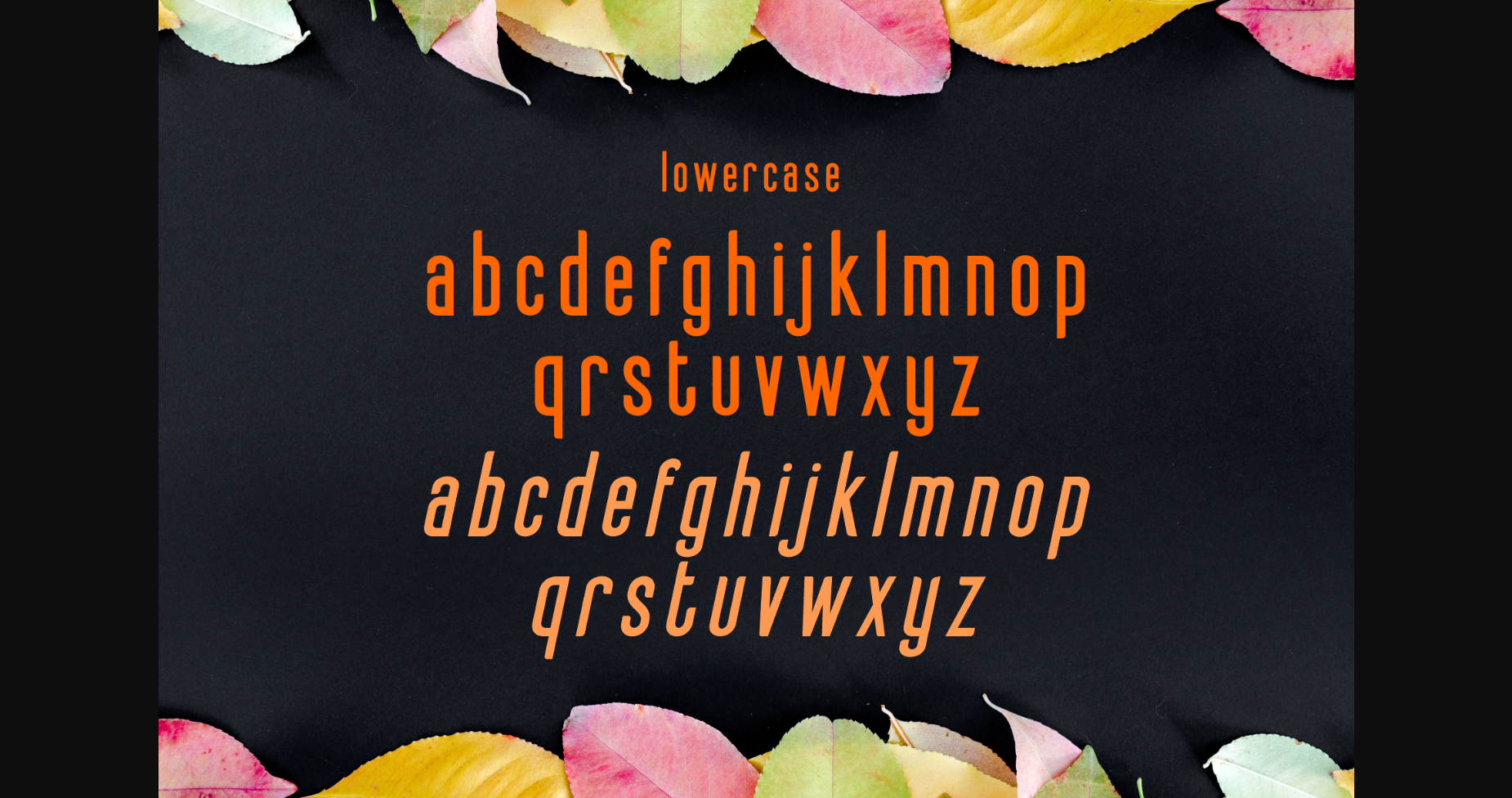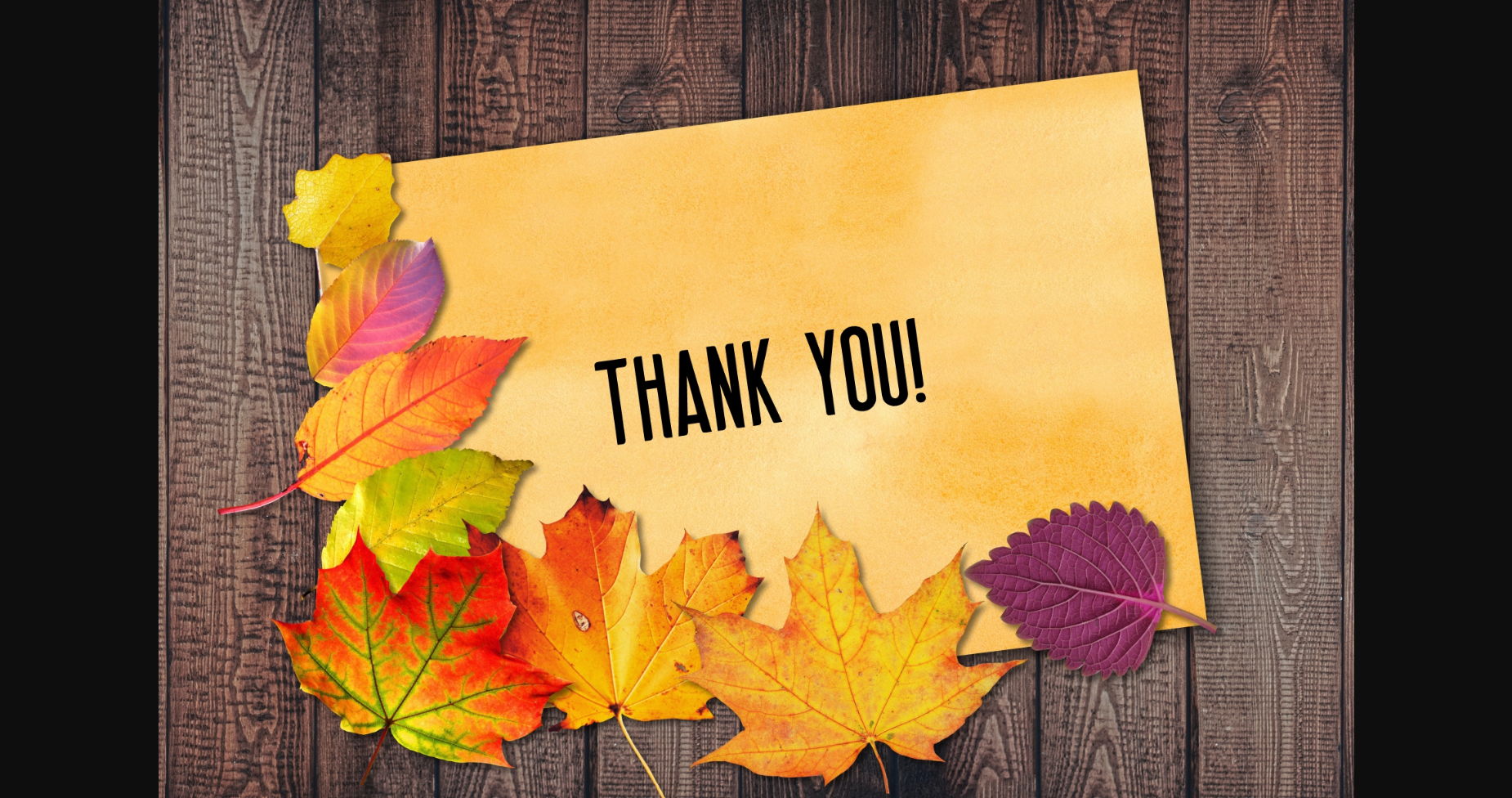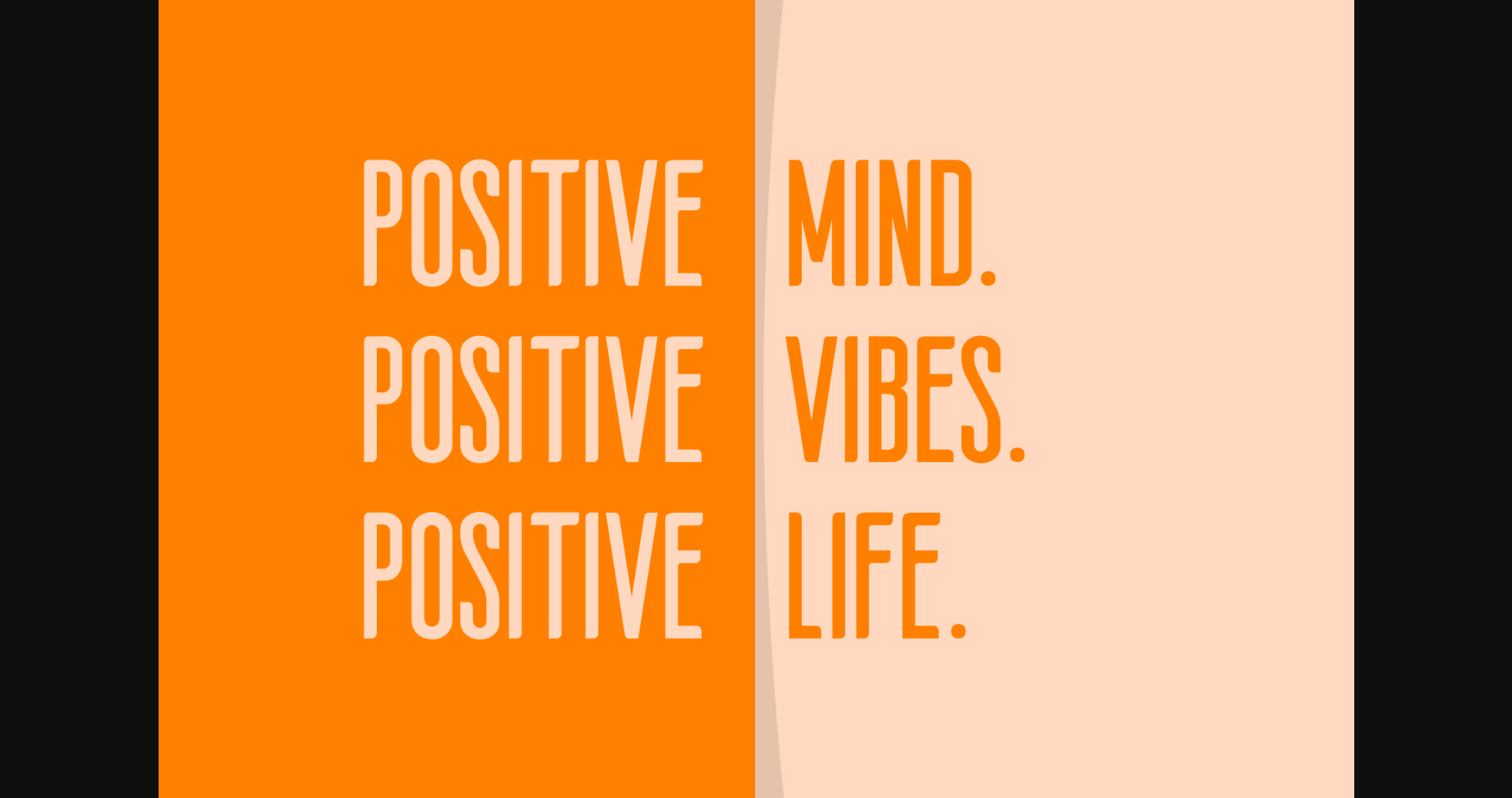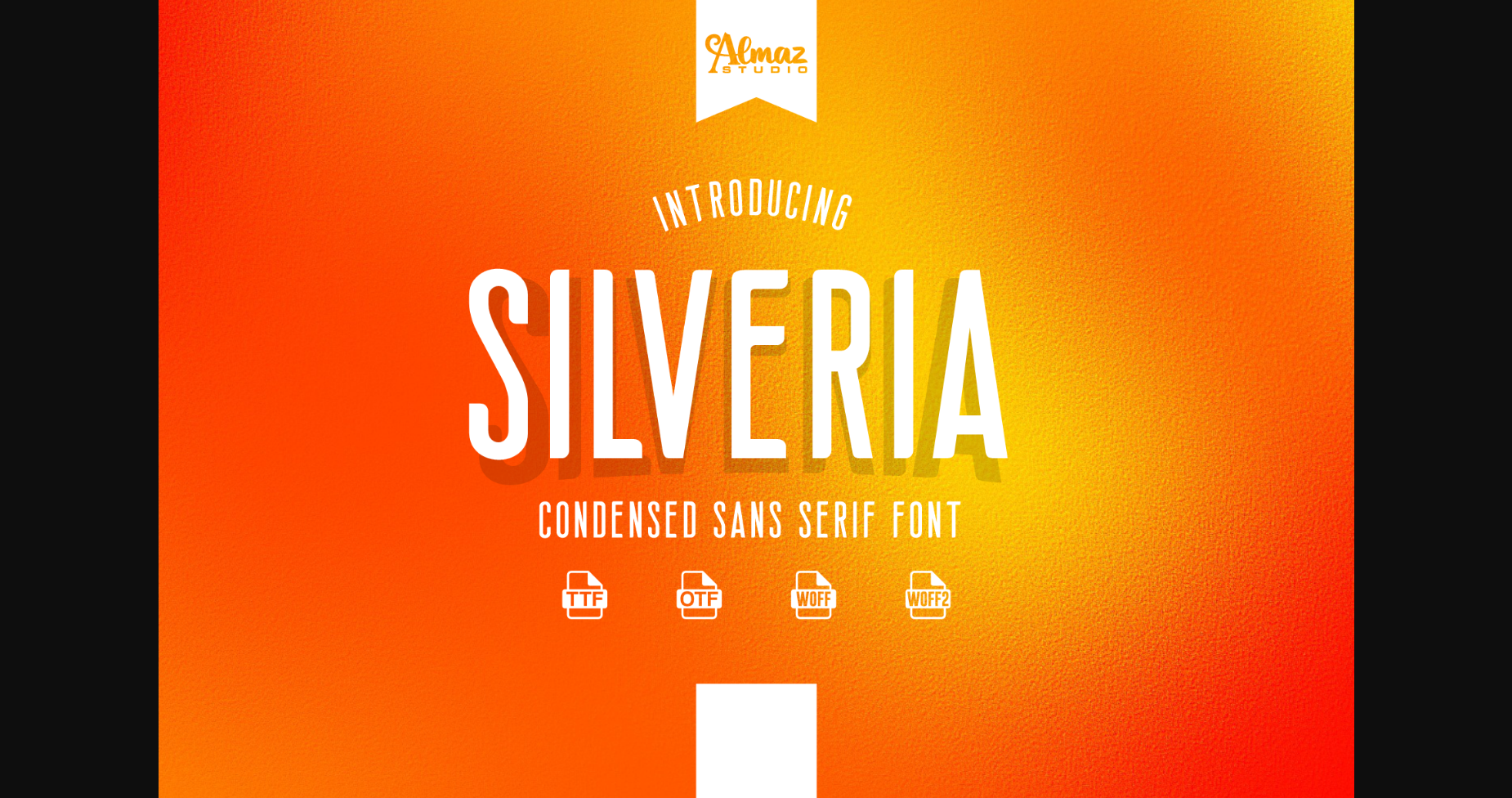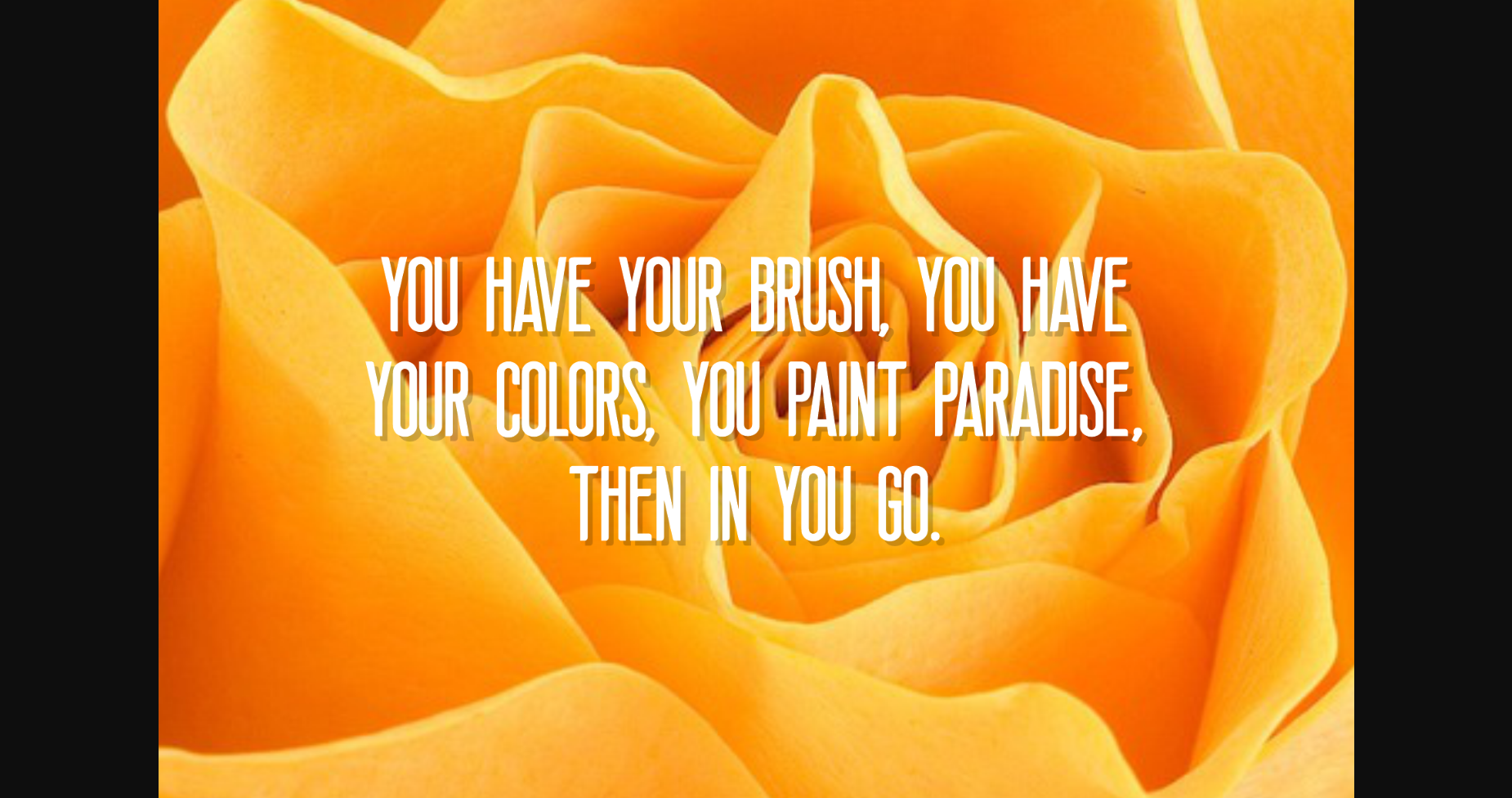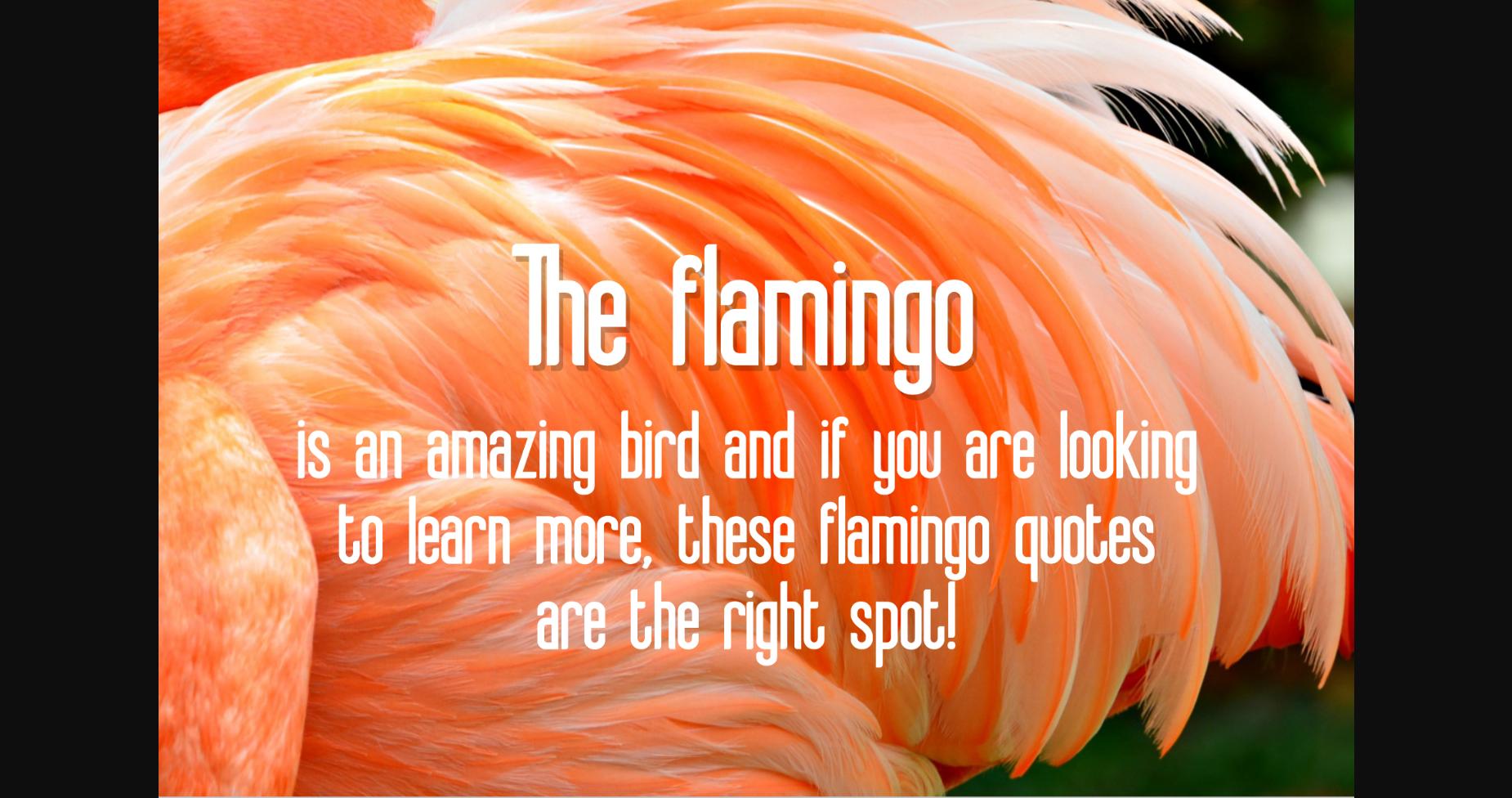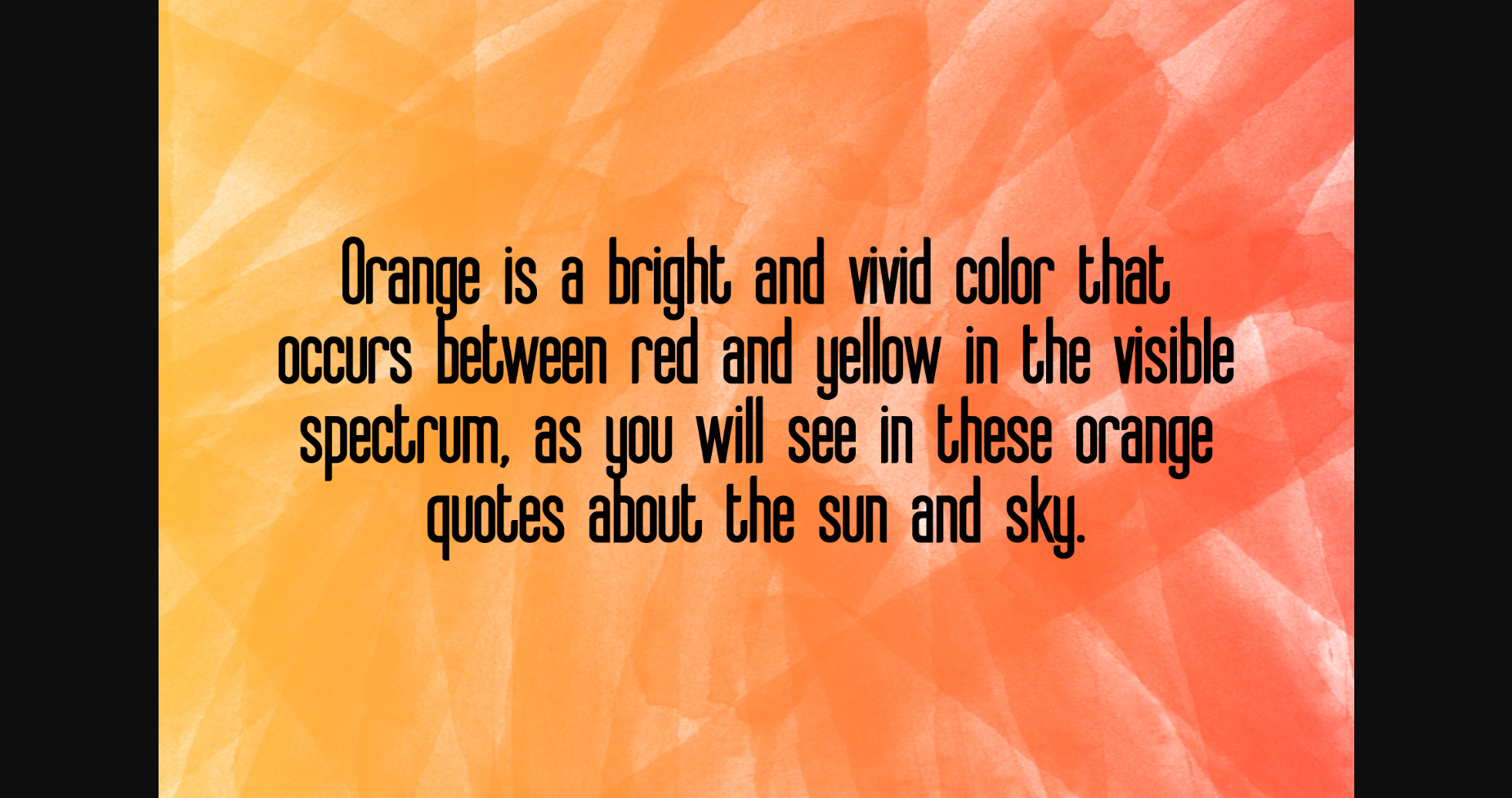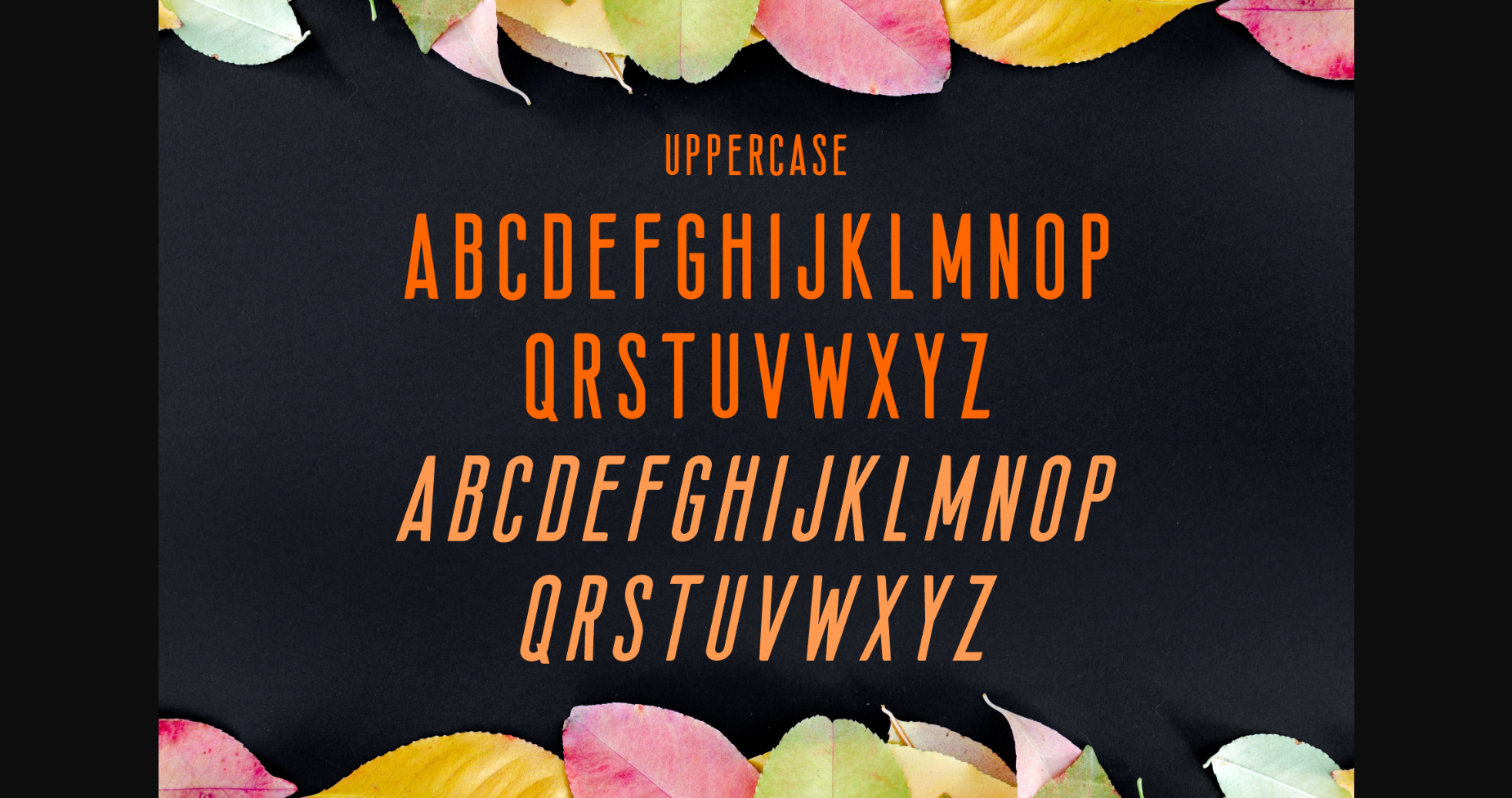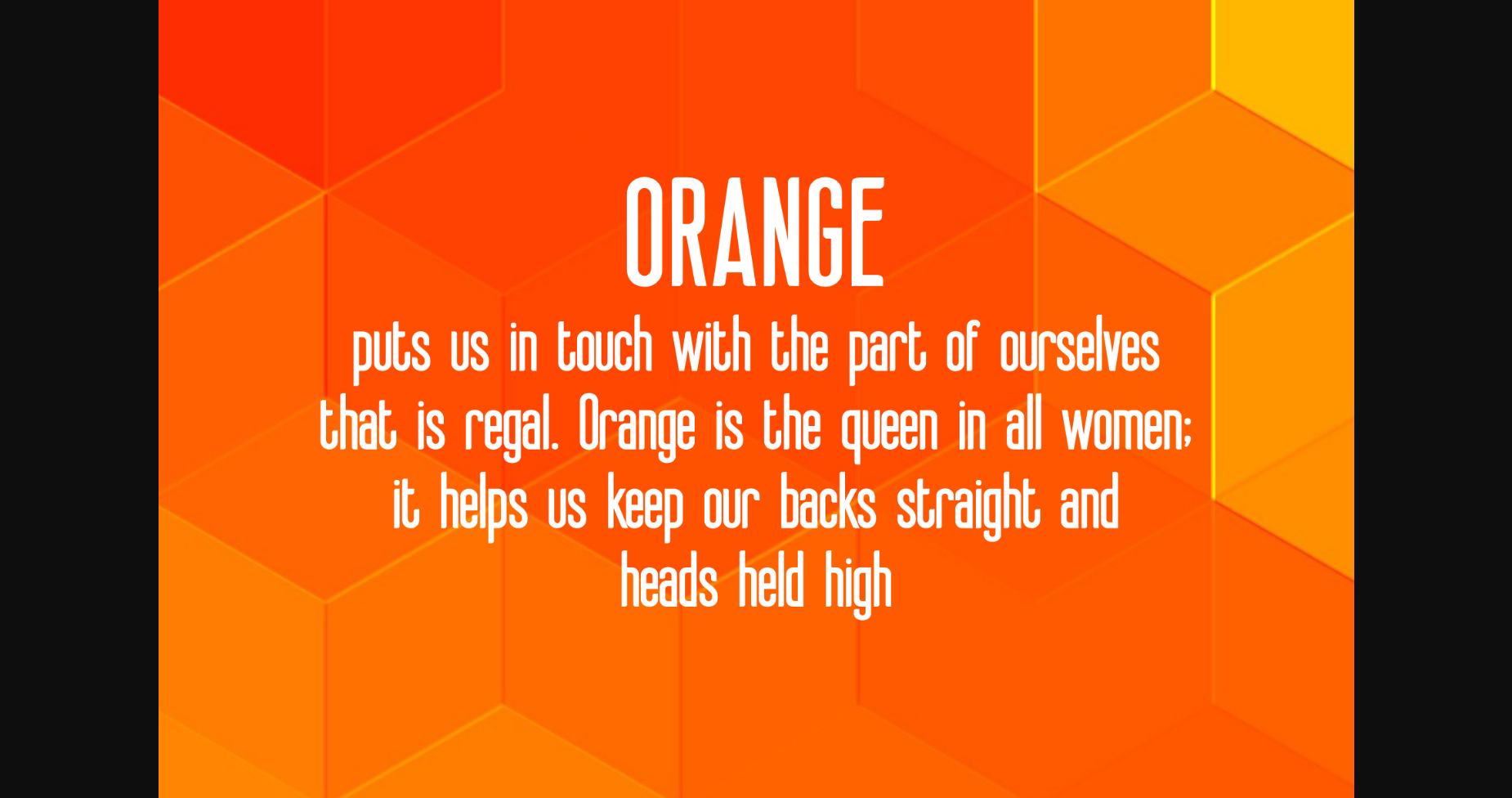
HomeSans Serif FontsSilveria Font Sans Serif Fonts Silveria Font FacebookXPinterestWhatsApp 1 of 11 ... Silveria Font Poster 2... Silveria Font Poster 3... Silveria Font Poster 4... Silveria Font Poster 5... Silveria Font Poster 6... Silveria Font Poster 7... Silveria Font Poster 8... Silveria Font Poster 9... Silveria Font Poster 10... Silveria Font Poster 11... About Silveria Font Silveria is a simple, tall and adaptable sans serif font. No matter the topic, this font will be an incredible asset to your fonts’ library, as it has the potential to elevate any creation. DOWNLOAD NOW People also explored Sweet Buttermilk Font Bollado Robin Font Homestay Font Burd Sans Font Vaguard Font Neutral Coffee Cup Mockup The Beauty Font Maghody Script Font 339 0 TagsSilveria Font Previous articlePranovia FontNext articleEllement Font LEAVE A REPLY Cancel reply Comment: Please enter your comment! Name:* Please enter your name here Email:* You have entered an incorrect email address! Please enter your email address here Website: Save my name, email, and website in this browser for the next time I comment. Personal Use Free Soria Personal Use Free Read more about this font Boldist Personal Use Free Read more about this font Happy Rabbit Personal Use Free Read more about this font Oatmeal Personal Use Free Read more about this font BLOG Using Fonts in Digital Marketing: Tips to Strengthen Your Brand Identity In the realm of digital marketing, every visual element plays a crucial role in shaping a brand's identity, and fonts are no exception. The... Modern Sans-Serif Fonts That Brands Love in 2025 Transform Your Website: Elevate Your Typography with 7 Best Web Font Generators Free Fonts Risk: Why Free Fonts Can Be Dangerous for Designers